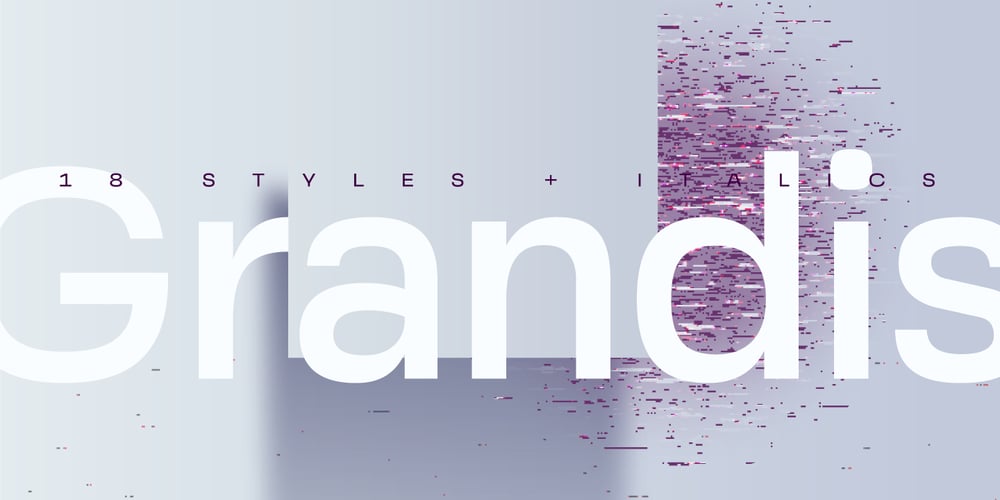
Grandis Font Family was designed by Eimantas Paškonis and published by Eimantas Paškonis. Grandis contains 36 styles and family package options. Grandis (“chainlink”) was initially intended for a first person shooter’s UI, so this guided the design. The font had to be readable while maintaining sci-fi feel and also to not rely on kerning (most video games don’t support it). This meant a large x-height, steep diagonals and squared bowls to reduce the amount of white space between letters. Tabular numbers as default facilitate UI design where timers or tables are involved. What makes the font stand out from similar grotesks is the letters’ classical proportions with wide bowls and narrow rectangles. The result is a readable, versatile workhorse with an interesting dynamic rhythm and where extreme weights/widths can also be used for display purposes. Supports multilingual Latin and Cyrillic, including Bulgarian and Serbian alternates.